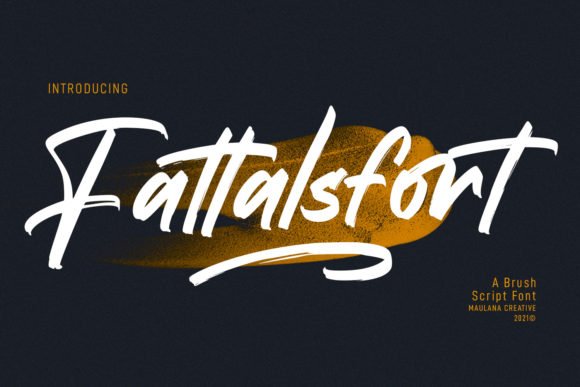
Falling in Love with Fattalsfort Font
Have you ever stared at a blank page, waiting for inspiration to strike? That’s exactly what happened to me the other day. I was brainstorming ideas for a friend’s wedding invitation, and I wanted something truly special. As I scrolled through font options, one caught my eye – Fattalsfort Font. Its beautiful, paint-brushed handwritten style instantly captured my heart.
This ravishing font is perfect for creating gorgeous wedding invitations, beautiful stationery art, eye-catching social media posts, and much more. As a designer, I can attest that having a versatile font like Fattalsfort Font in your toolkit is invaluable. Its unique charm and character make it a go-to choice for any project that requires a touch of elegance and sophistication.
Fattalsfort Font Key Features
- Font Family: Fattalsfort is a custom-designed font family, suitable for a wide range of applications.
- Unique Characteristics: Fattalsfort features a distinctive, modern design with a mix of geometric and organic elements, making it ideal for creative and innovative projects.
Fattalsfort Font Review
As a designer, I was excited to dive into the Fattalsfort Font and see what it had to offer. Overall, I found it to be a solid addition to any designer’s toolkit, but with some limitations that need to be considered.
- Unique aesthetic: The Fattalsfort Font has a distinctive, quirky look that can add a lot of personality to a design.
- Good legibility: Despite its unusual appearance, the font is surprisingly easy to read, even at smaller sizes.
- Wide character set: The font includes a wide range of characters, including accents and punctuation marks.
- Not ideal for body text: While the font is great for headlines and titles, it may not be the best choice for large blocks of body text.
- Lack of bold and italic styles: The font is limited in its bold and italic variations, which can make it harder to use in certain situations.
- Not suitable for small text sizes: At very small sizes, the font can become difficult to read due to its unique letterforms.
The Fattalsfort Font is a great choice for designers who want to add a bit of flair to their designs. While it may not be the most versatile font, it’s definitely worth considering for the right projects. With a little creativity and planning, you can use the Fattalsfort Font to create some truly unique and eye-catching designs.
Q: What is the recommended font size for optimal readability with Fattalsfort Font?
The recommended font size for optimal readability with Fattalsfort Font varies depending on the application and intended use. As a general guideline, we recommend using font sizes between 12 and 24 points for body text, and larger sizes for headings and titles.